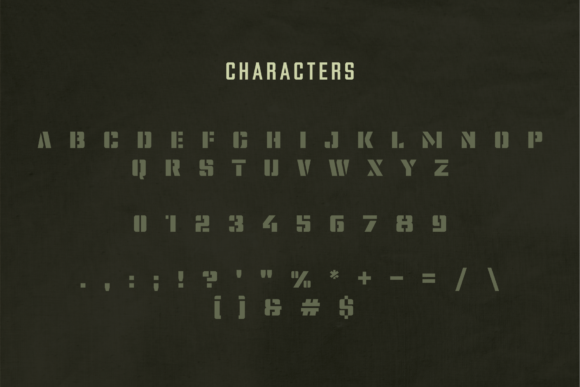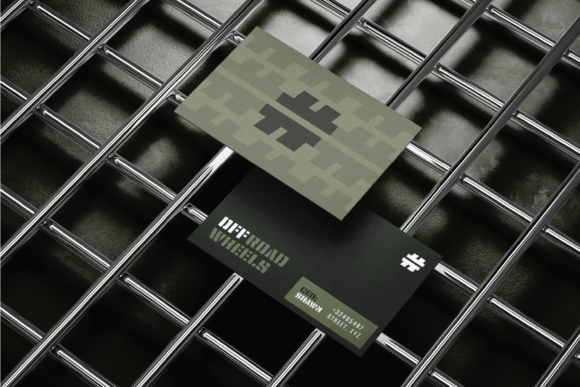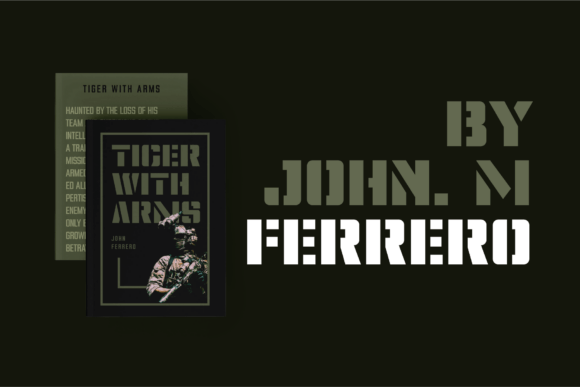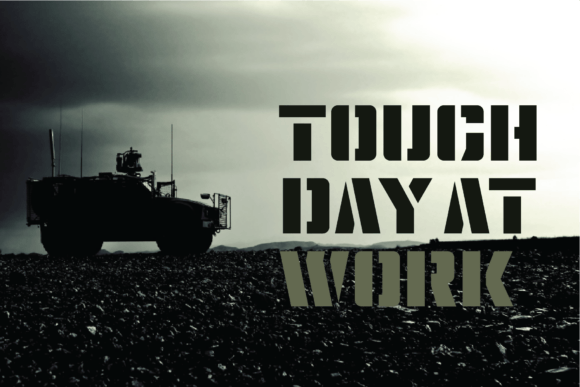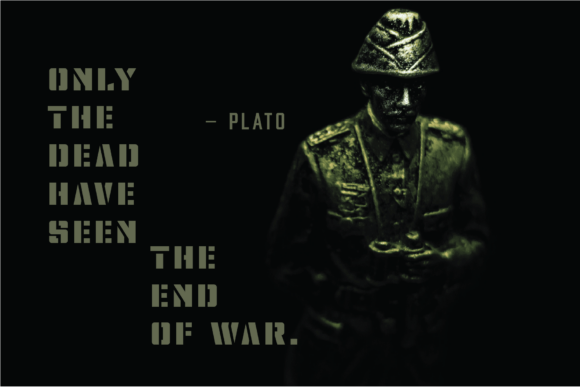
Introducing Balor Font: The Ultimate Military-Inspired Stencil Font
Are you looking for a font that exudes a strong, industrial style and a rugged, masculine aesthetic? Look no further than Balor Font, a military-inspired stencil font that’s perfect for designers and crafters seeking to add a tough, commanding presence to their creative projects.
The Characteristics of Balor Font
Balor Font is defined by its distinct stencil cuts, which give it a bold and rugged appearance. This font is designed to evoke a sense of strength and resilience, making it ideal for projects that require a military or industrial edge. The stencil cuts also add a sense of functionality to the font, making it perfect for use in posters, labels, signage, and other applications where clarity and legibility are essential.
Design Elements and Aesthetic
The design of Balor Font is centered around its industrial and military inspiration. The font features clean lines, sharp edges, and a robust structure that gives it a commanding presence. The stencil cuts add a layer of texture and depth to the font, making it stand out from more traditional typefaces. The overall aesthetic of Balor Font is rugged, masculine, and perfect for projects that require a strong, bold look.
Uses for Balor Font
Balor Font is an incredibly versatile typeface that can be used in a wide range of creative projects. Some of the most popular uses for Balor Font include:
• Posters and Flyers: Add a bold, attention-grabbing headline to your poster or flyer with Balor Font.
• Labels and Packaging: Use Balor Font to add a rugged, industrial touch to your product labels and packaging.
• Signage: Balor Font is perfect for use in signage, whether you’re creating a directional sign or a promotional banner.
• Branding and Identity: Use Balor Font to create a strong, memorable brand identity that exudes confidence and resilience.
Why Choose Balor Font?
There are many fonts available that claim to offer a strong, industrial style, but Balor Font stands out from the crowd. Here are just a few reasons why:
• Unique Design: Balor Font features a unique and distinctive design that’s unlike any other font on the market.
• Highly Legible: Despite its bold and rugged appearance, Balor Font is highly legible, even at small sizes.
• Versatile: Balor Font can be used in a wide range of creative projects, from posters and flyers to labels and signage.
Tips for Using Balor Font
To get the most out of Balor Font, here are a few tips to keep in mind:
• Use it boldly: Balor Font is designed to make a statement, so don’t be afraid to use it boldly and prominently in your designs.
• Experiment with colors: Balor Font looks great in a wide range of colors, from metallic silvers and blacks to bold brights and neon hues.
• Pair it with contrasting fonts: For maximum impact, pair Balor Font with contrasting fonts that offer a softer, more elegant appearance.
Balor Font is a powerful and versatile typeface that’s perfect for designers and crafters seeking to add a strong, industrial style to their creative projects. With its unique stencil cuts, bold design, and high legibility, Balor Font is the perfect choice for posters, labels, signage, and other applications where a rugged, masculine aesthetic is desired. So why wait? Download Balor Font today and start adding a tough, commanding presence to your designs!